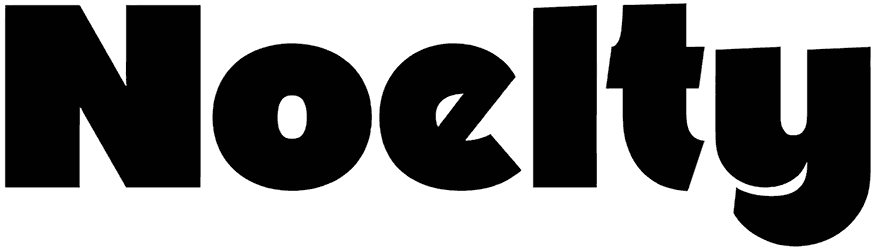
Noelty Font
Getting to style your words in a modern fashion is not the only advantage you can take from Noelty. This sans serif font also has a few other versions you can choose from, so that everything goes down according to your taste.
You can consider it a perfect bold font for store signs as long as you sell beautiful clothes, cool new accessories, or serve delicious meals. That way, you’re not even going to notice that the numbers aren’t available.